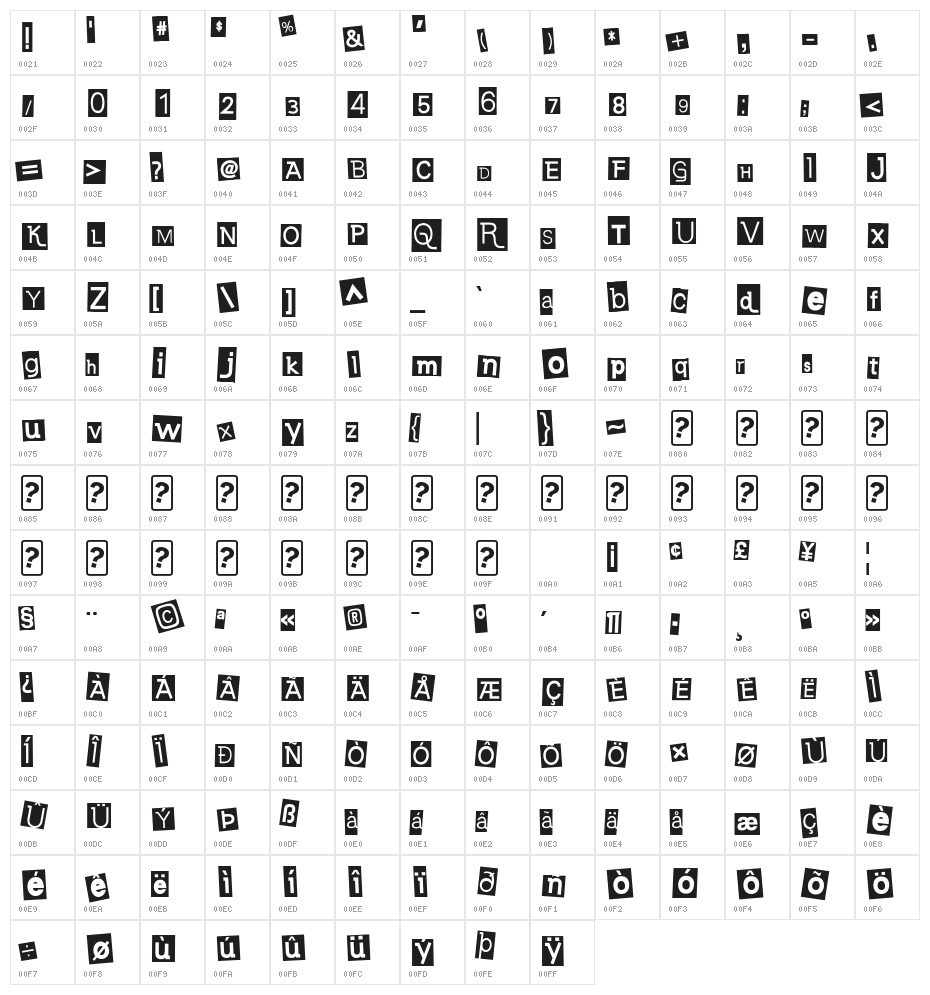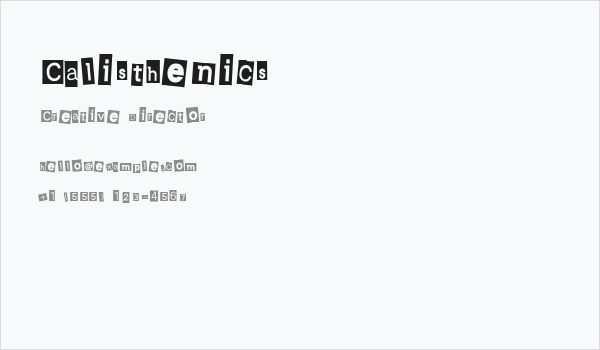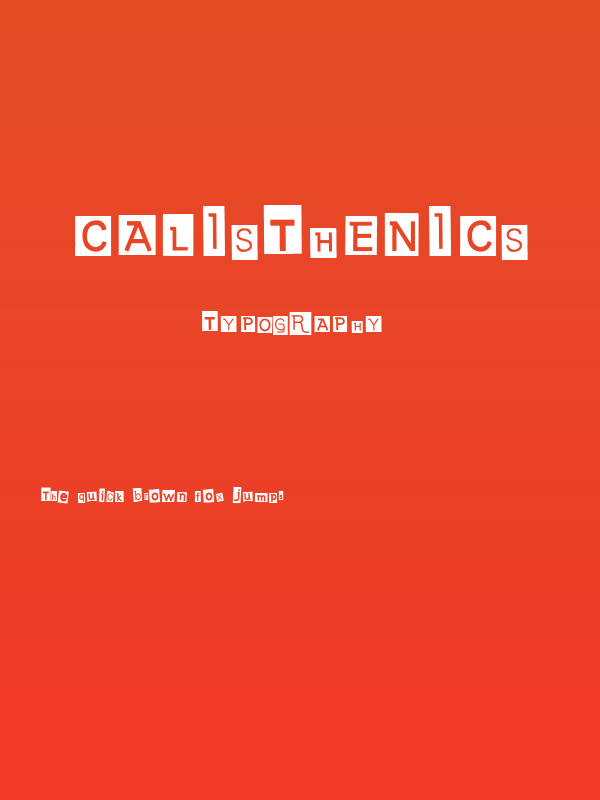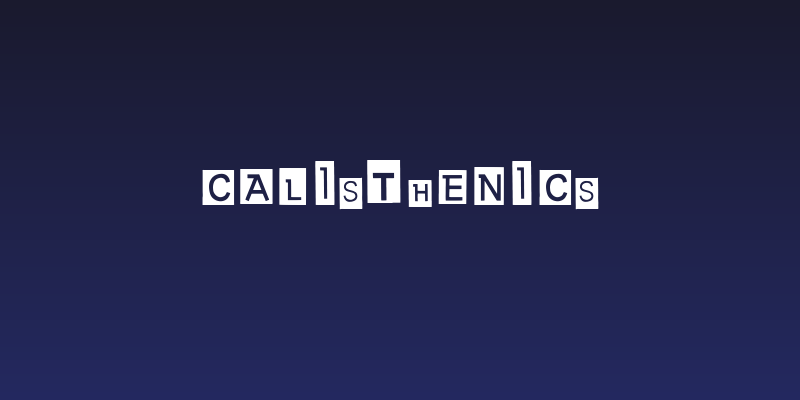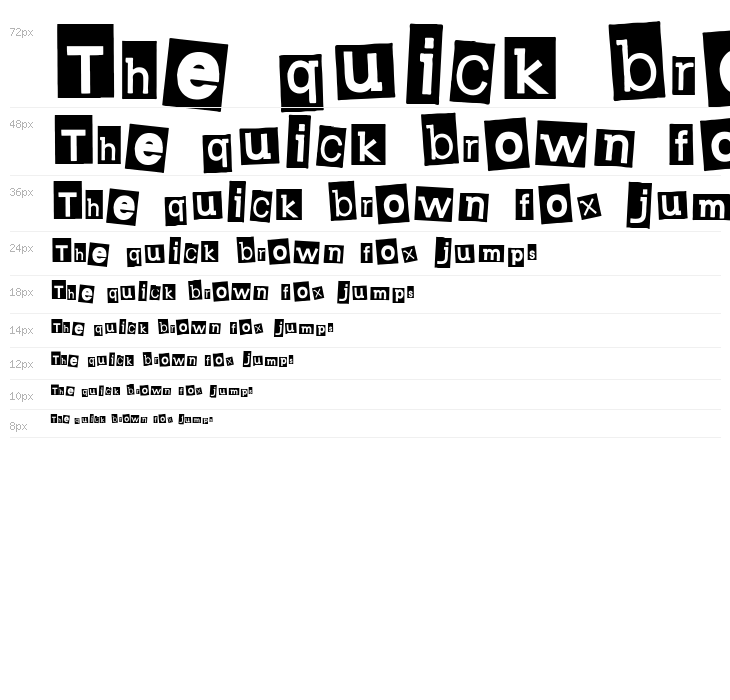
Calisthenics Font
| Anwendungsfall | Headlines, Posters, Artistic Designs |
| Vorgeschlagene Projekte | Ideal for creative projects like posters, flyers, children's books, and artistic designs. |